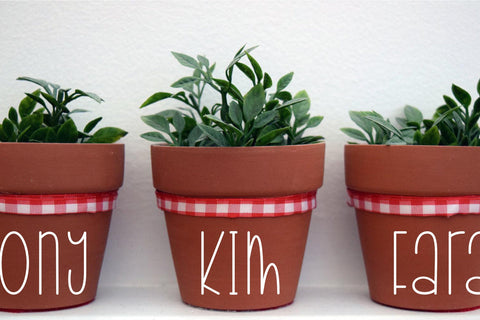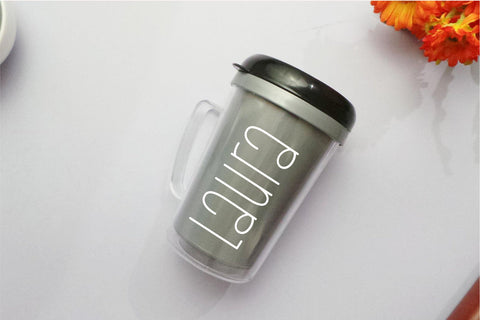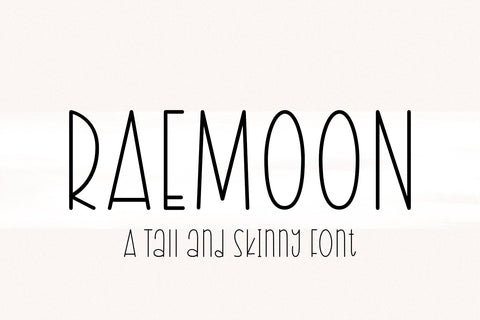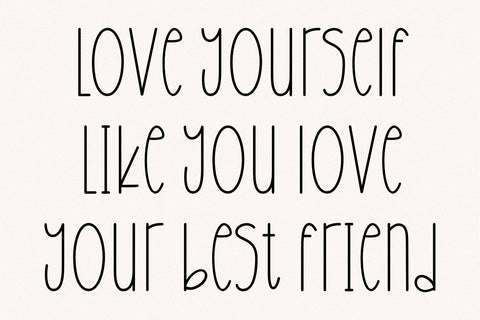
Raemoon Font - Procreate fonts - Cute font - Cricut font
Raemoon is a tall and skinny font perfect for signs! Simple and versatile, this font is perfect for chic farmhouse decor look, home decor, cards, and farmhouse living.